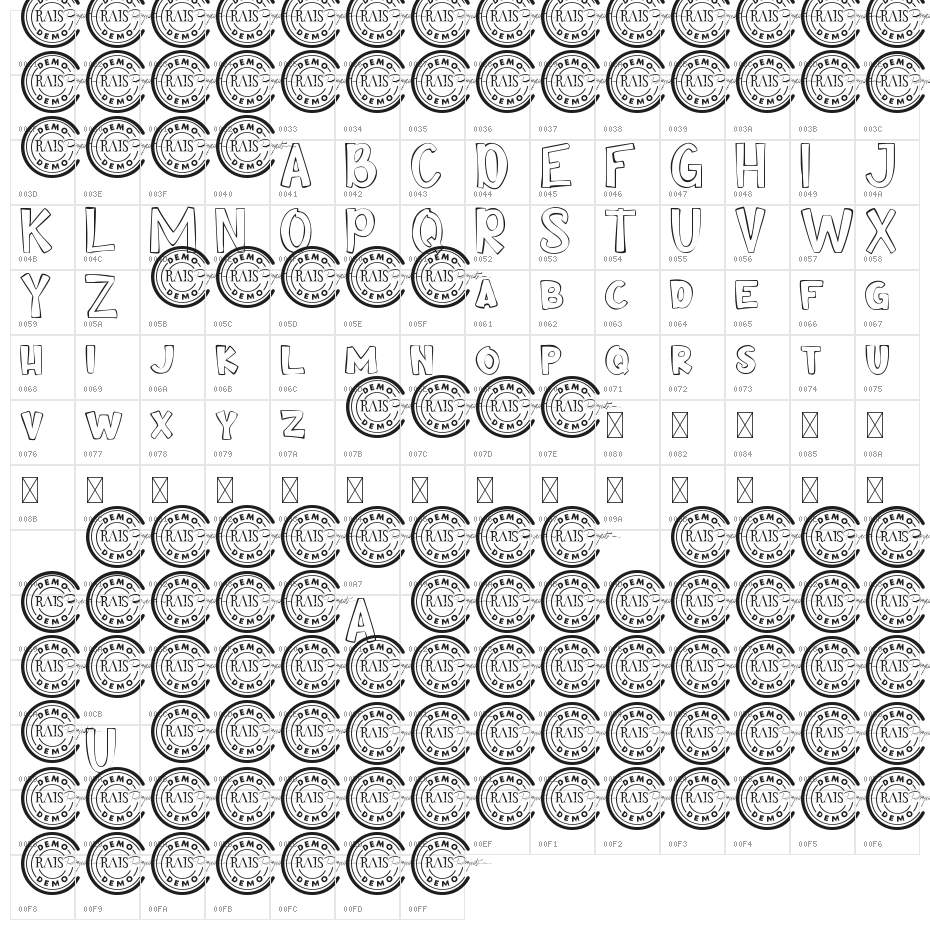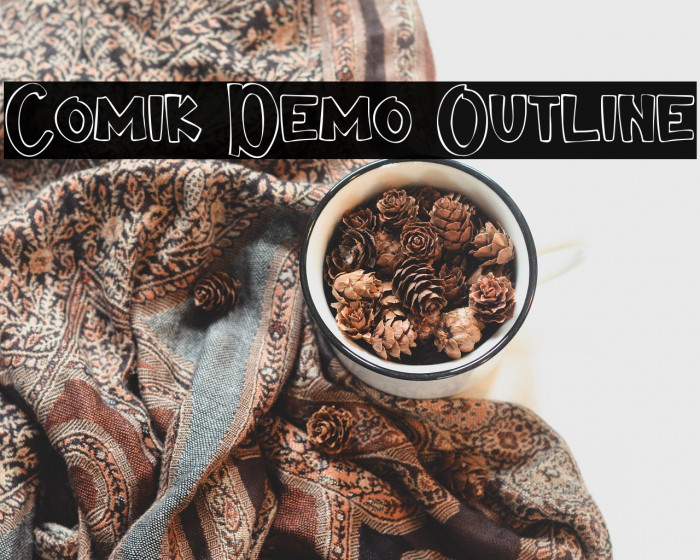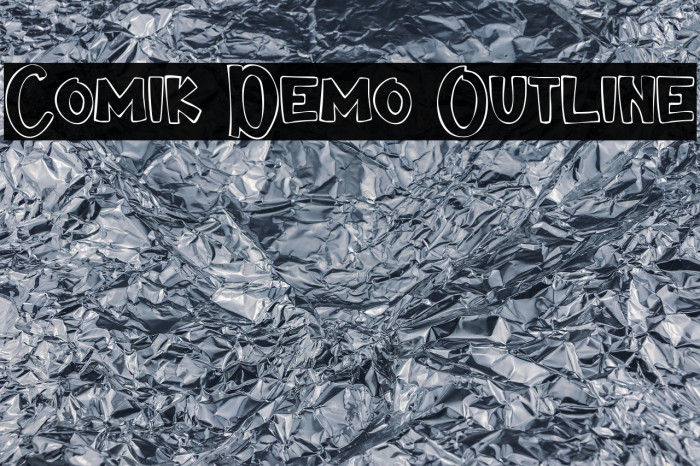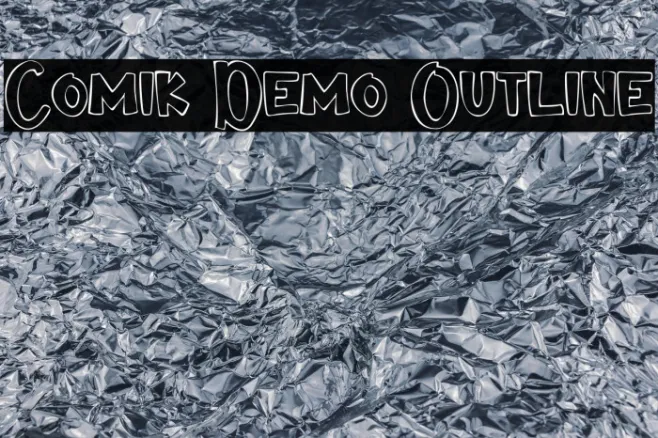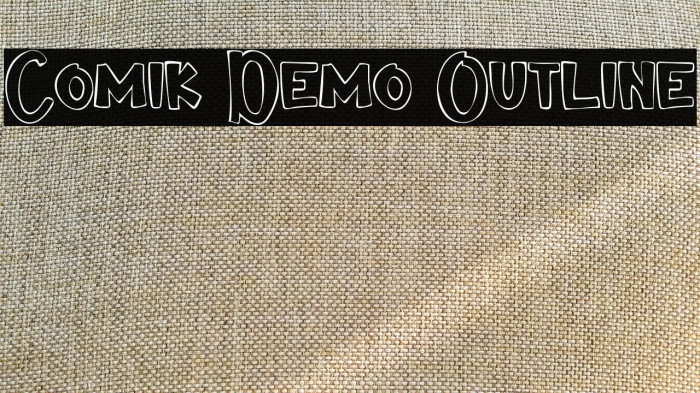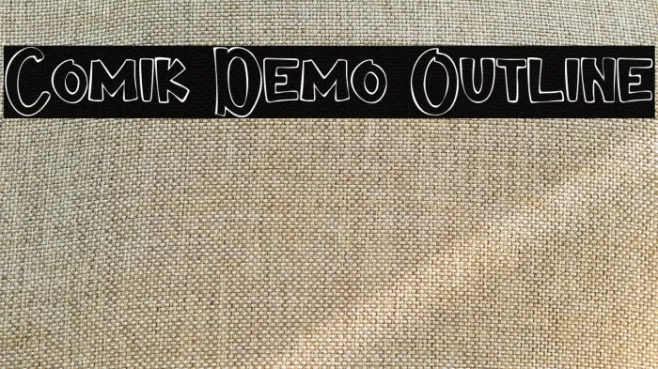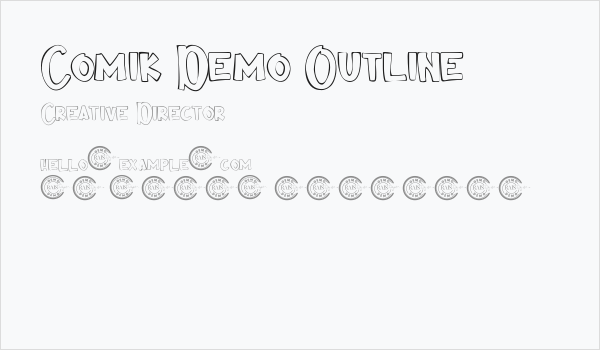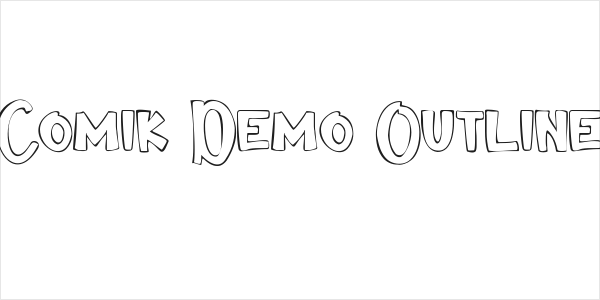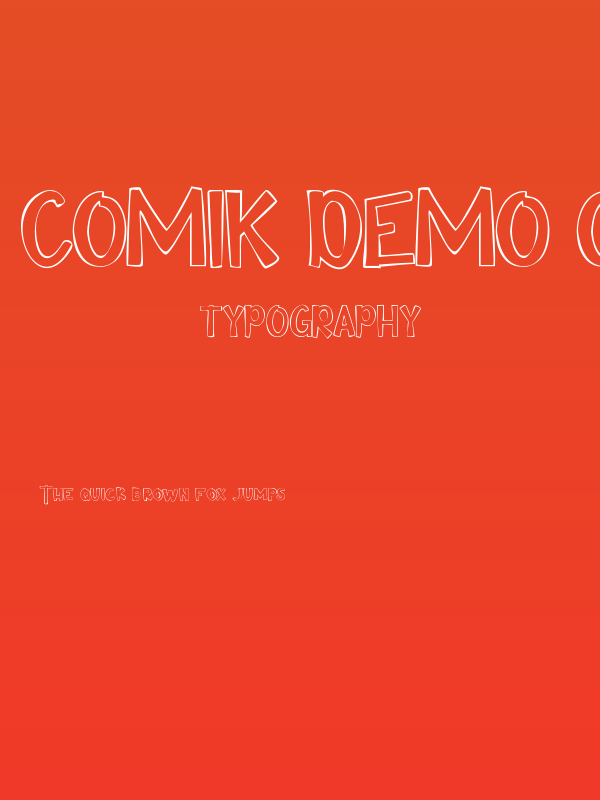
Comik Demo Outline Font
Comik Demo Outline Description
This playful and bold font features an outline style that gives it a comic book feel. The characters are uppercase, with a slightly irregular and hand-drawn appearance, adding to its whimsical charm. The strokes are consistent in width, creating a uniform look despite the playful design. The font's outline nature allows for creative color fills, making it versatile for various design projects. Its boldness ensures readability, while the quirky style adds personality to any text.
| Overall Style | Playful, Comic |
| Proposed Projects | Ideal for comic book titles, children's book covers, playful posters, and creative branding projects. |